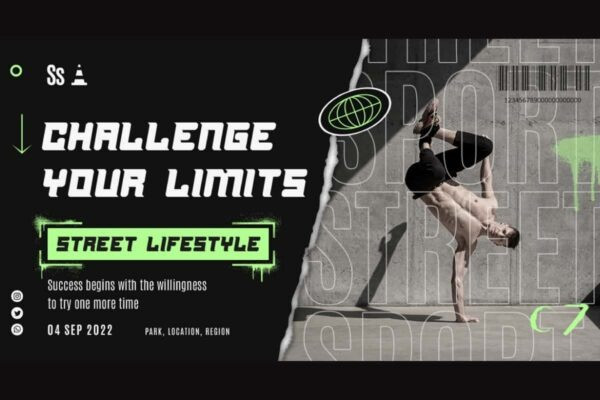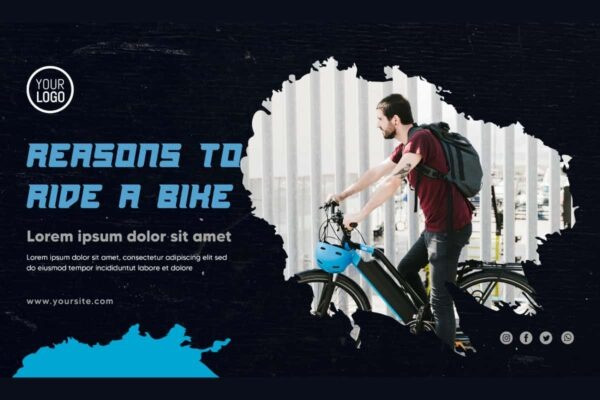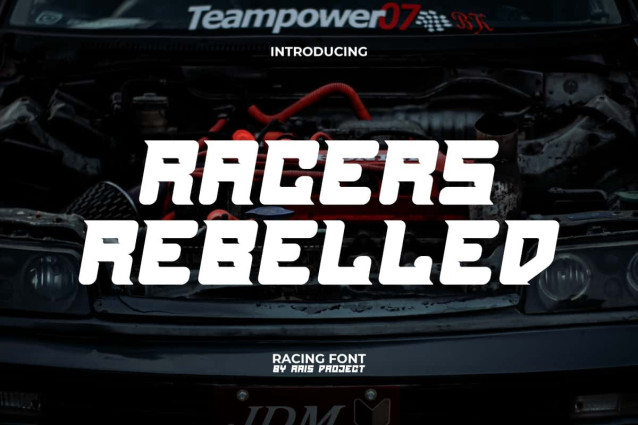
Racers Rebelled Font
Racers Rebelled Font is a sporty strong racing font to make your designs standout, by RaisProject. The style of this font can complement your designs that have a sports or automotive theme and can be read clearly. It will be great for custom design, poster, label, signage, stationery, product packaging, quotes, brand image, advertisement, invitation, marketing material, website page, and more!
Racers Rebelled Font includes a full set of ALL CAPS for Uppercase and Lowercase Letters, Numerals, and large range of Punctuation. This cool font will be suitable for various industries, such as sports, automotive, fashion, game, barber shop, cafe, event or festival, photography, printing, publishing, etc.